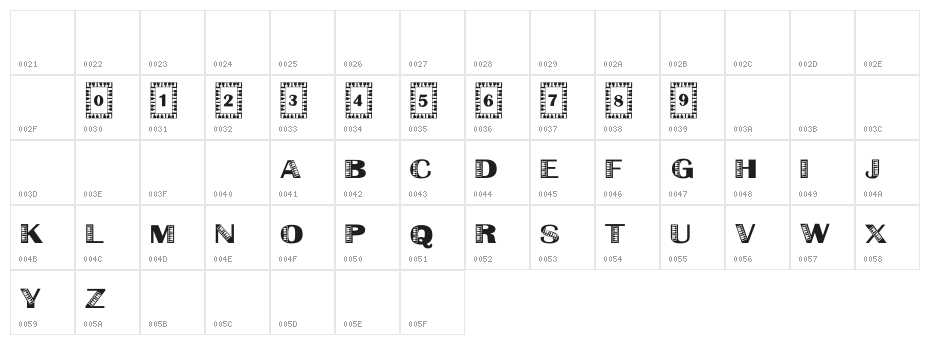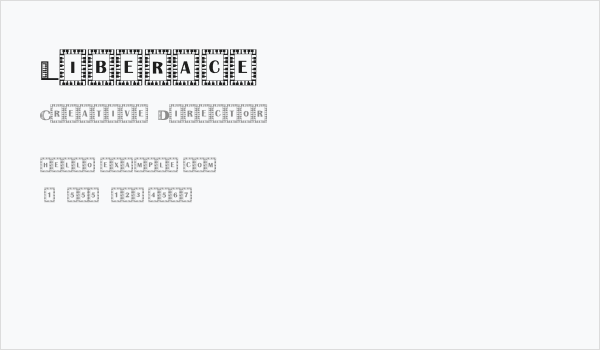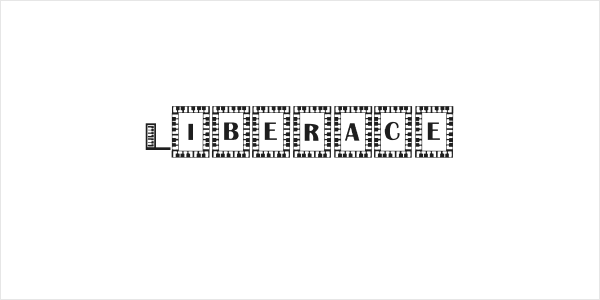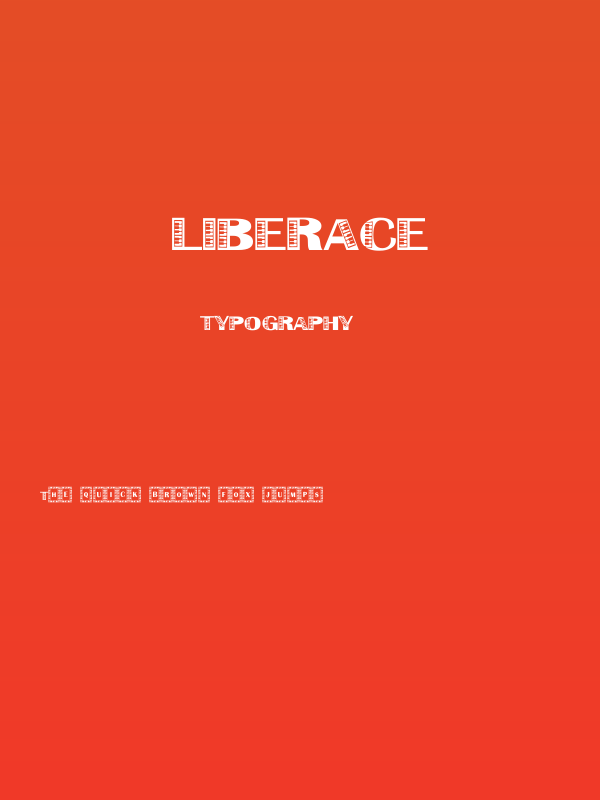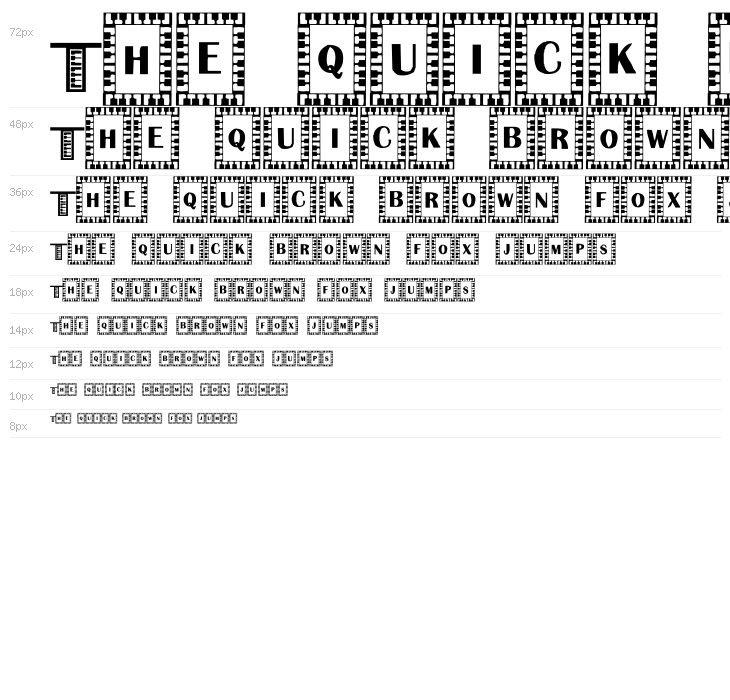
Liberace Font
Liberace Description
This font features a bold and decorative style, characterized by its unique pattern that resembles piano keys or a musical theme. Each letter is enclosed in a rectangular frame, adding a distinctive and artistic touch. The uppercase letters are bold and prominent, while the lowercase letters maintain the same decorative style. The numbers and special characters follow the same design, ensuring consistency throughout. This font stands out with its creative and playful appearance, making it ideal for projects that require a musical or theatrical theme.
Proposed ProjectsIdeal for music-themed posters, concert flyers, theatrical event promotions, and creative branding projects.